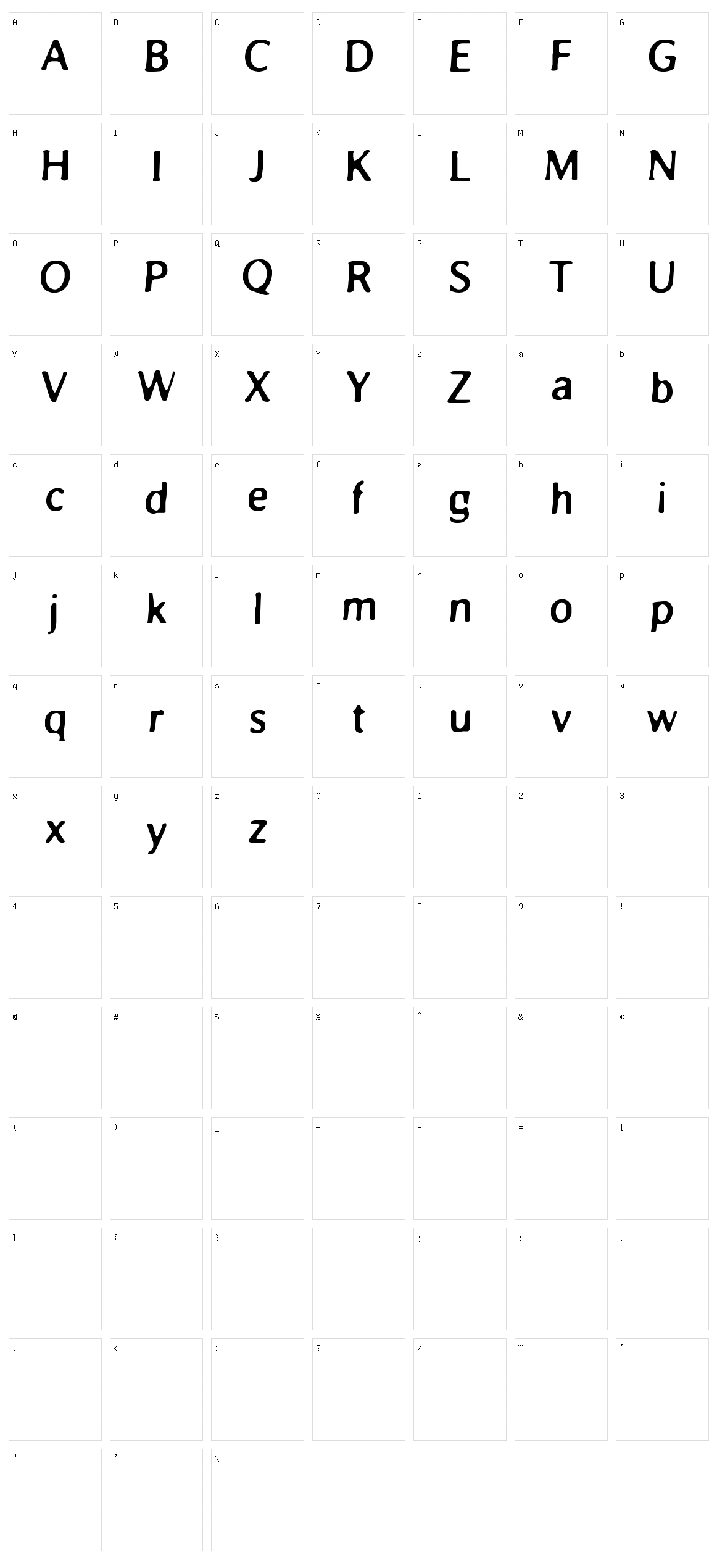
The free font Blur is carefully designed by Lucas Cobb Designs, showcasing a thoughtful balance of creativity and usability and falls under the Eroded font style. When you download the ZIP file, it contains only 14.24 KB of font files, making it lightweight and quick to download. Please review the license details below to understand permitted usage and distribution rights. If license information is not available, we recommend using this font for personal projects only or contacting the author directly for commercial usage permissions.